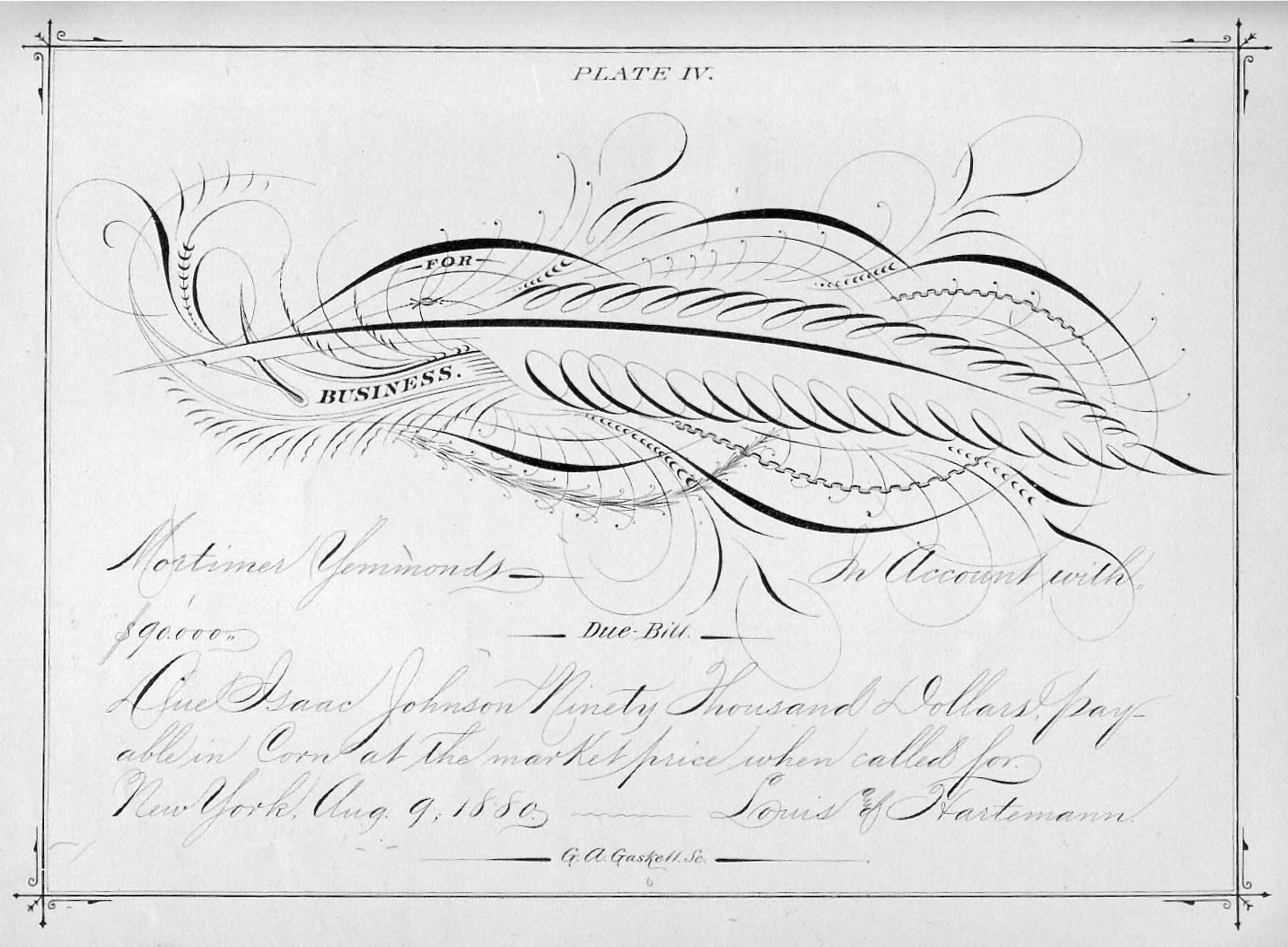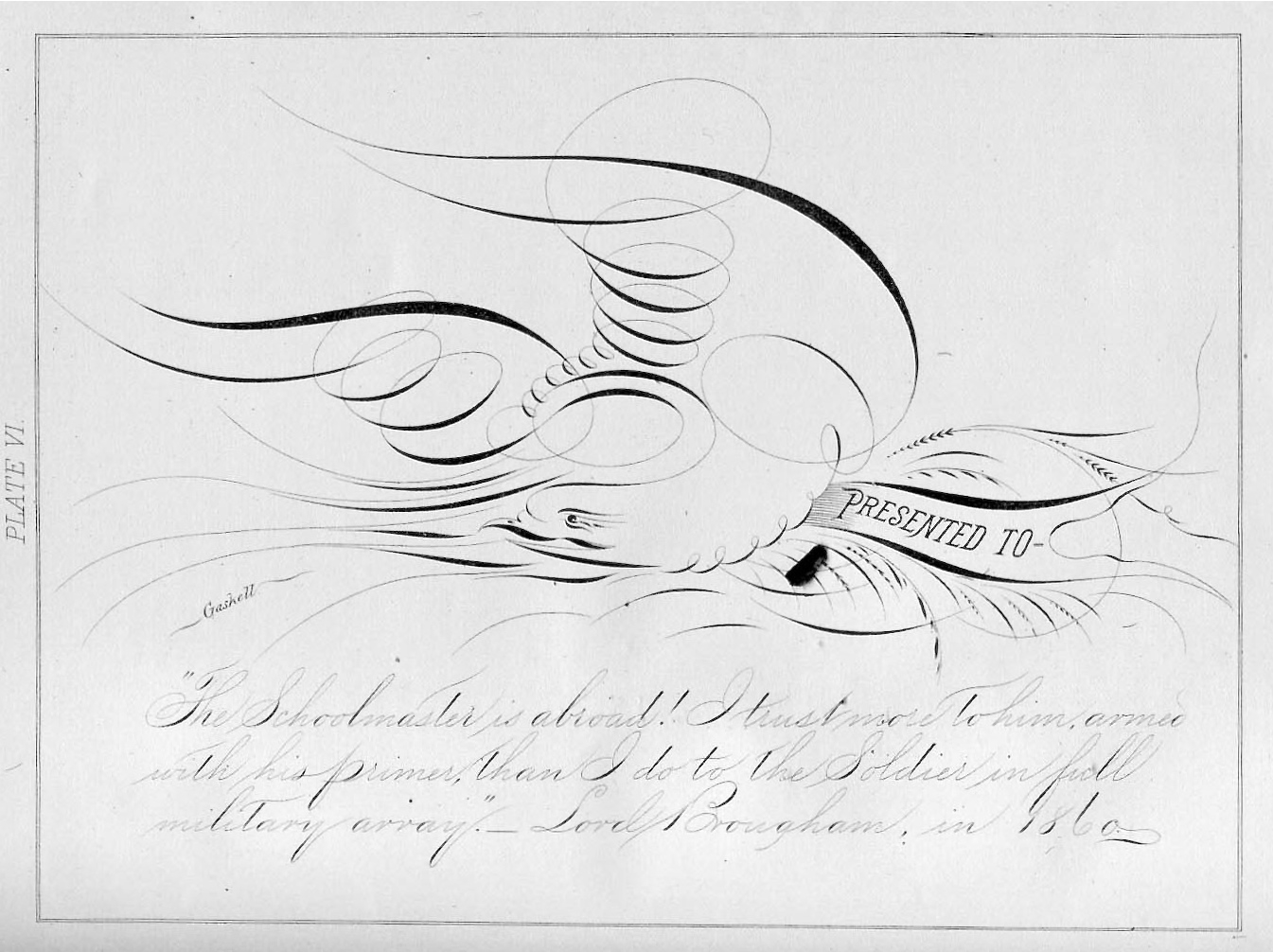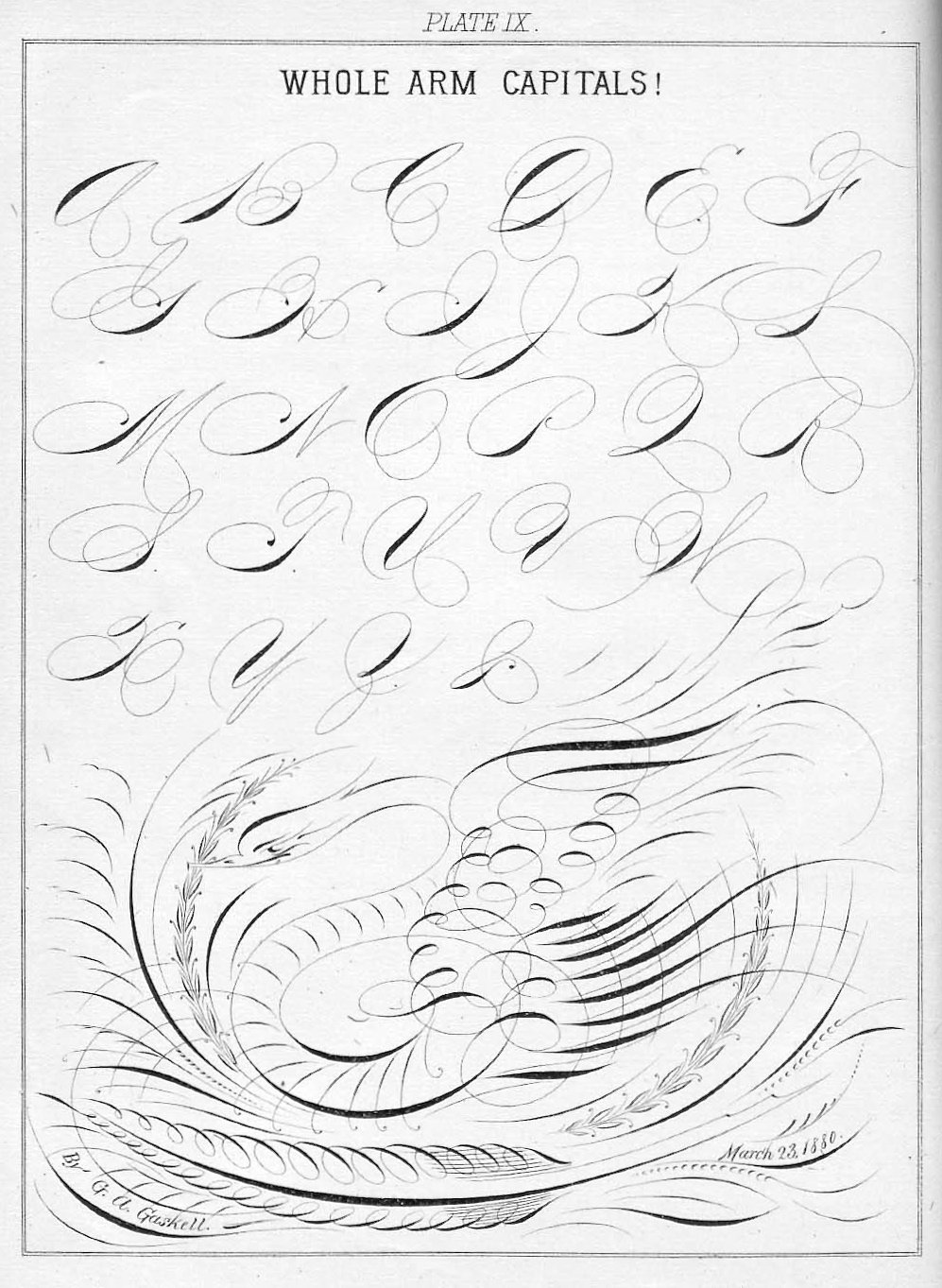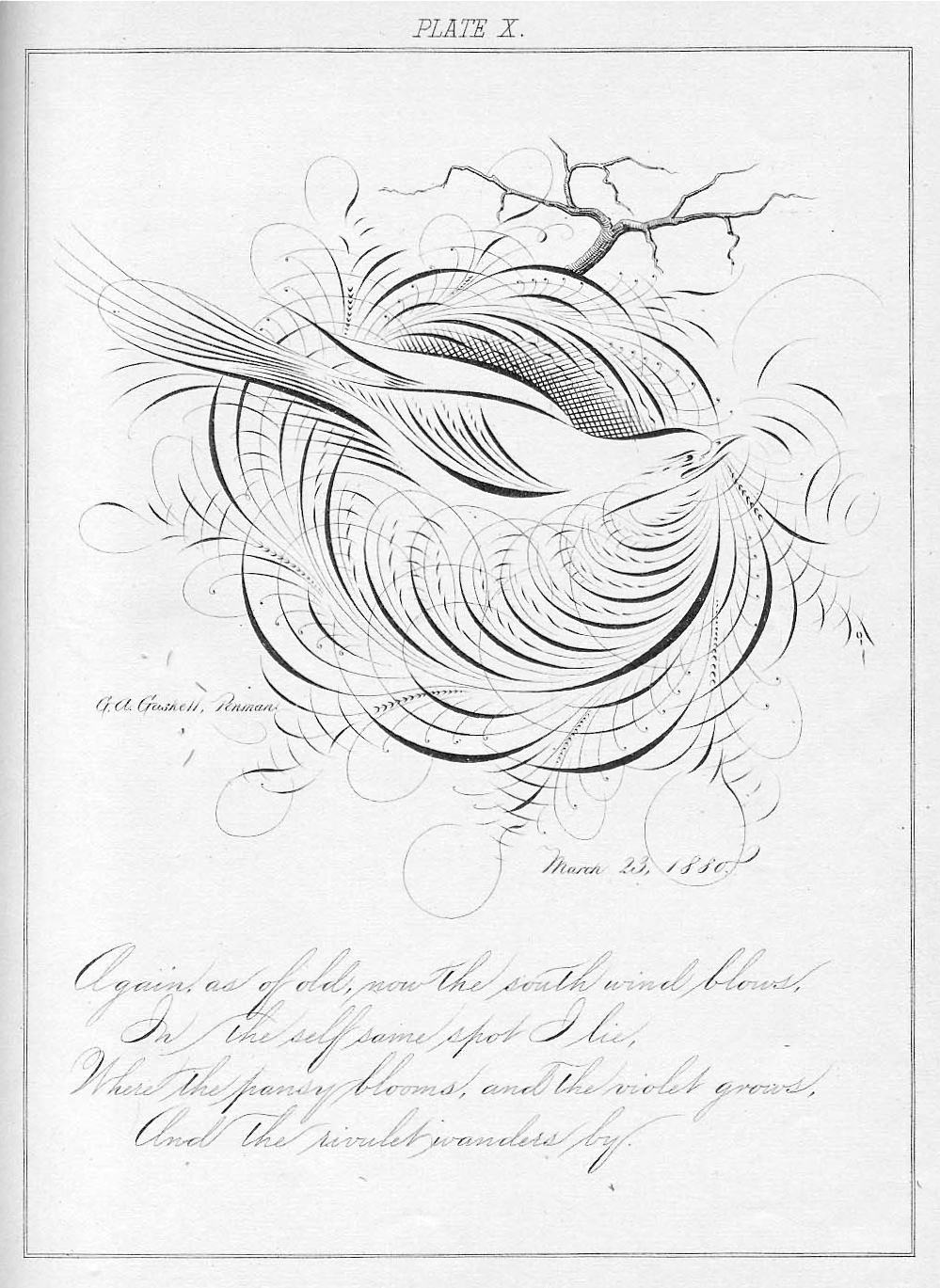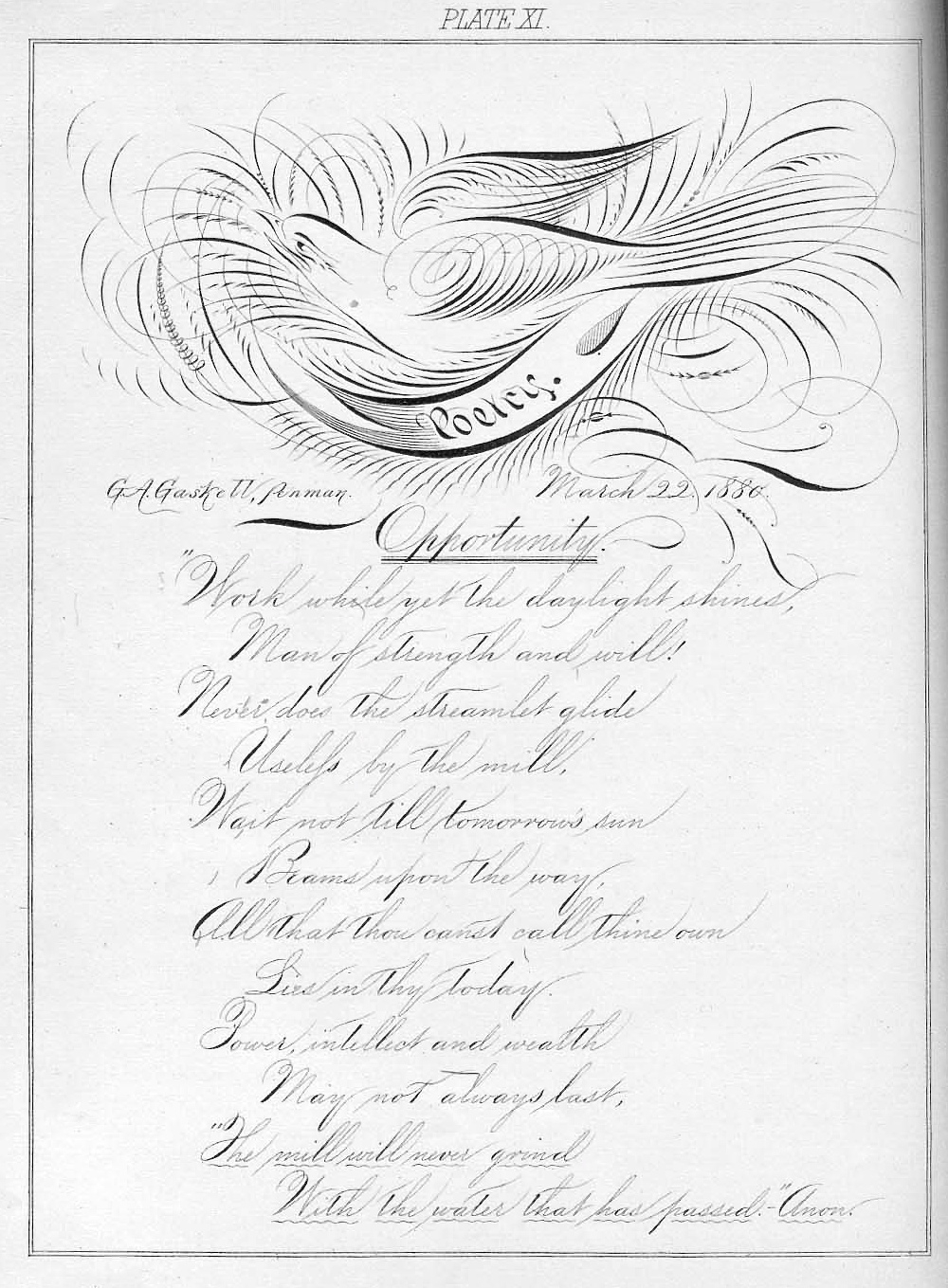
Lettering: Platt R. Spencer, Master Penman
November 7, 1800, East Fishkill, New York – May 16, 1864, Geneva, Ohio
Platt Rogers Spencer was the youngest child born to Caleb and Jerusha, and creator of the Spencerian writing system.
1830 United States Federal Census
Ashtabula, Ohio
P R Spencer
1840 United States Federal Census
Geneva, Ohio
Platt R Spencer
1850 United States Federal Census
Geneva, Ohio
Name / Age
Platt R Spencer 49
Persis Spencer 43
Robert C Spencer 20
Sarah L Spencer 17
Platt R Spencer 15
Henry C Spencer 12
Harvey A Spencer 12
Lyman P Spencer 10
Phebe J Spencer 8
Ellen R Spencer 00
1860 United States Federal Census
Oberlin, Ohio
Name / Age
Platt R Spencer 60
Persis Spencer 54
Lyman Spencer 20
Robert Spencer 31
Platt Spencer 25
Henry Spencer 22
Harvey Spencer 22
Phoebe Spencer 18
Persis Spencer 10
Emma Spencer 4
The Ohio Educational Monthly, January 1861
New York Daily Tribune
May 20, 1864
TESTIMONIAL.
At a called mooting of the TEACHERS and STUDENTS of Bryant, Stratton & Packard’s Commercial College, held at their rooms on Thursday, May 19, the following resolutions touching the death of Mr. PLATT R. SPENCER were unanimously adopted:
Whereas, We have been made acquainted with the fact of the death of our beloved friend and former instructor, Mr. Platt R. Spencer, who died at his residence in Geneva, Ohio, on Monday evening, May 16, inst.; and
Whereas; We deem it not less a duty than a sacred privilege to memorialize this sad event by a solemn act of the Institution of which we are members, and in which he so recently officiated; therefore, be it
Resolved, That in this sad dispensation of Providence we recognize the hand of a just and wise God, and while we are called upon to mourn the loss of one who has upon us a peculiar claim for gratitude and affection, and whose departure from a field of great usefulness has filled our hearts with unalloyed sorrow and regret, we bow with submission to the will of “Him who doeth all things well.”
Resolved, That in all our past association with our departed friend we have ever found in him the qualities of a true man; and that the retrospect of this valued acquaintanceship recalls no act or thought to mar the sacred pleasures of memory.
Resolved, That in the death of Mr. Spencer, every true friend of education and moral advancement has occasion to mourn the domino of a brother; for in all that tended to benefit society, to advance tho cause of virtue, and to administer to a true and healthy social progress, his heart was alive and his hand free.
Resolved, That all lovers of correct penmanship throughout the world have lost in Mr. Spencer a most devoted and faithful exemplar; and that the day is not distant when to him must be universally conceded the honor of having evolved and perfected a system of Writing which must remain the business standard for all coming time.
Resolved, That while we sincerely deplore the sad stroke which has placed beyond our reach the living instruction of the revered author of the “Spencerian Penmanship,” we will never cease to commemorate his services by a healthful ambition to profit by the works he has left behind him
Resolved, That we do most earnestly and sincerely sympathize with the immediate family and friends of the deceased, and extend to them our heartfelt condolence in this their hour of deepest sorrow.
Resolved, That these proceedings be published in the city papers, and that a copy thereof be handsomely engrossed for the family of the deceased.
W. W. Harder, Chairman.
W. Allan Miller, Secretary.
S. S. Packard, James McGivren, W. H. Palmer, J. Simpson, G. B. West, Committee.
Find a Grave
Geneva
Susan Bradburn
Arcadia Publishing, 2007
Grave site
Spencerian Key to Practical Penmanship
Ivison, Phinney, Blakeman & Co., 1866
Ashtabula Telegraph
(Ohio)
October 20, 1876
Advertisement
Hill’s Album of Biography and Art, 1882
An Illustrated Description of Milwaukee
The Milwaukee Sentinel, March 1890
Spencer Brothers
Penman’s Art Journal
February 1898
“Father Spencer” Part 1
Penman’s Art Journal
March 1898
“Father Spencer” Part 2
Penman’s Art Journal
April 1898
“Father Spencer” Part 3
Penman’s Art Journal
May 1898
“Father Spencer” Part 4
The Kansas City Journal
(Missouri)
September 3, 1899
Father of Penmanship.
Plan to Erect a Memorial at Geneva, O., to Platt R. Spencer.